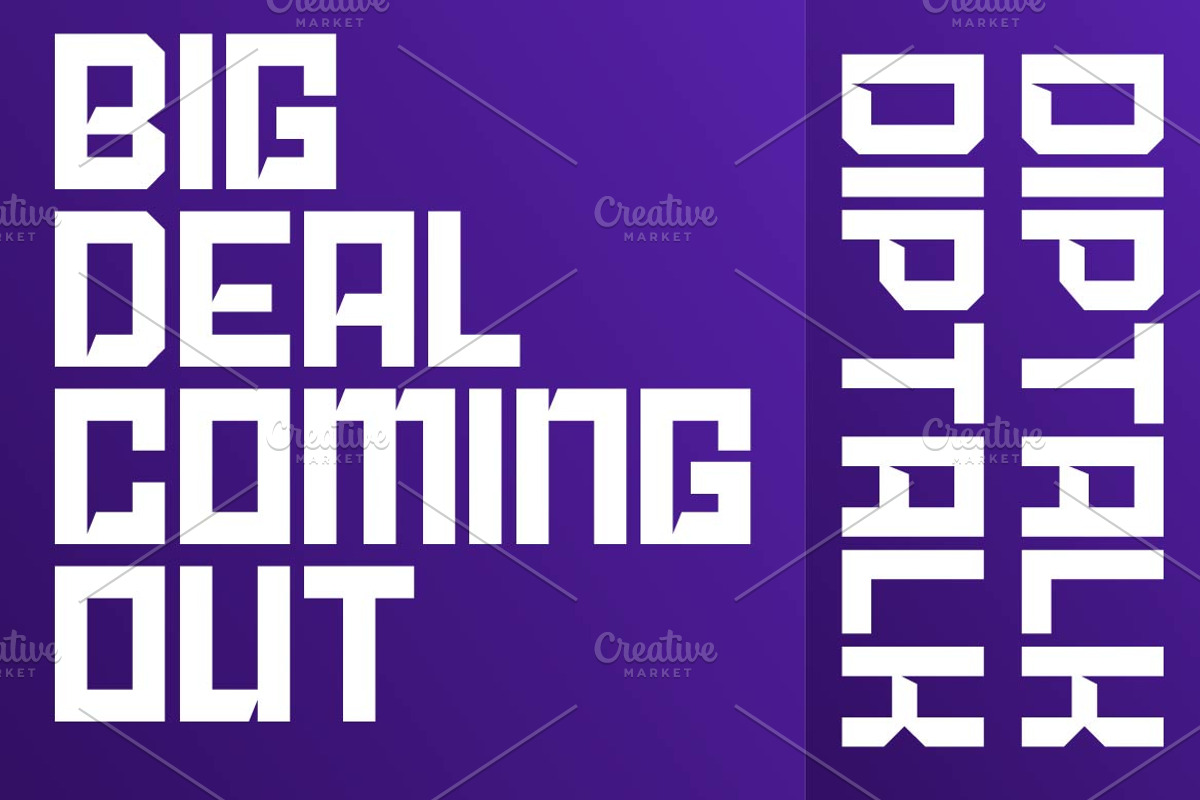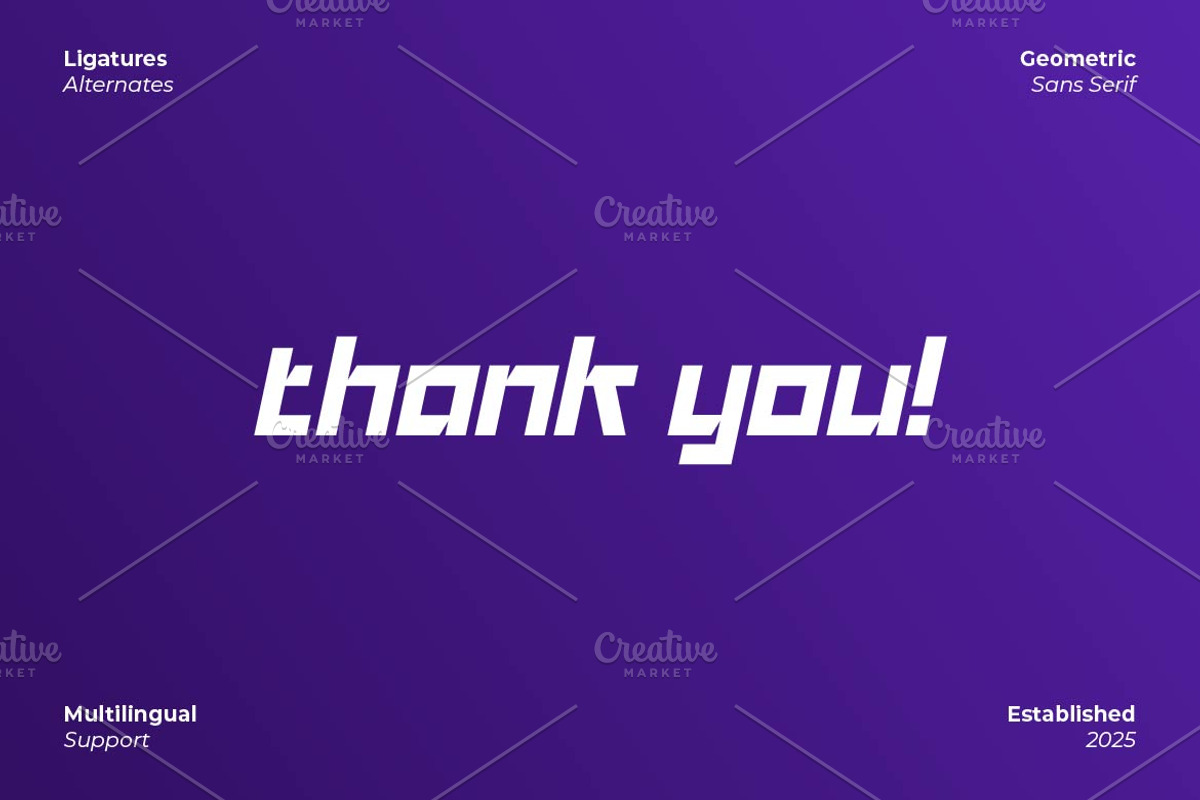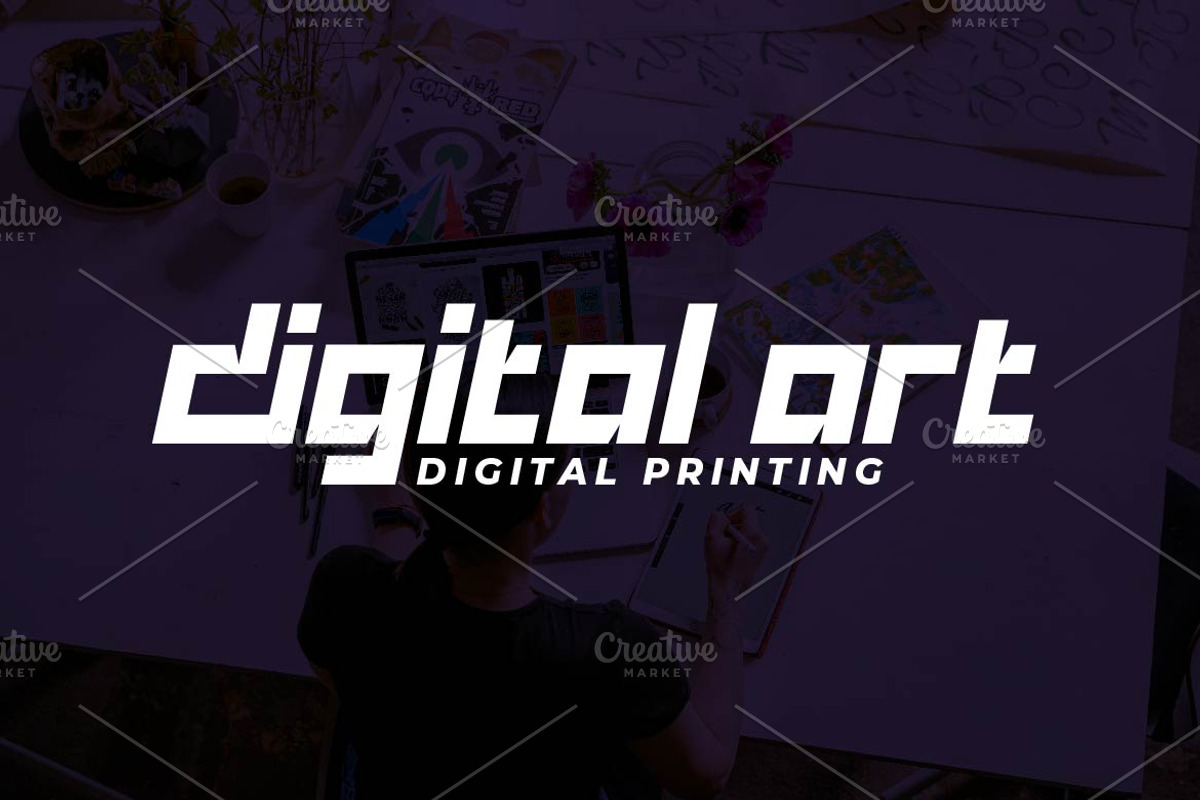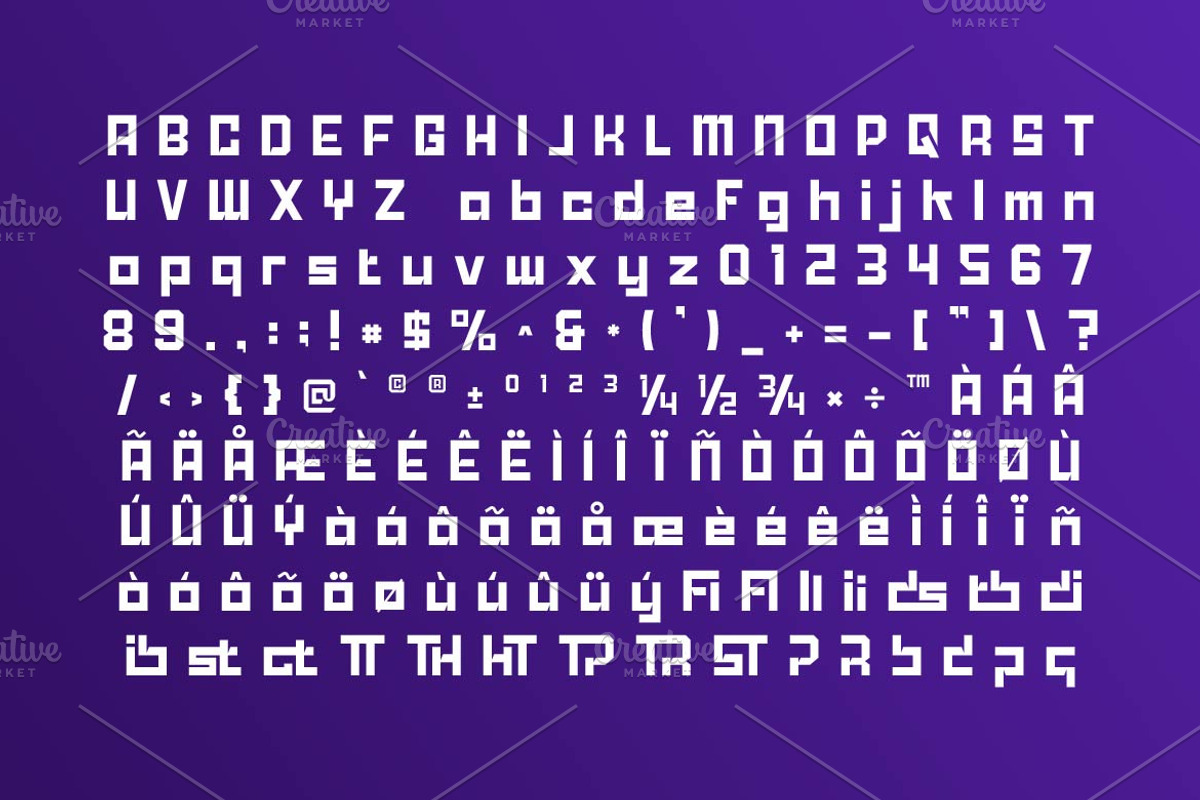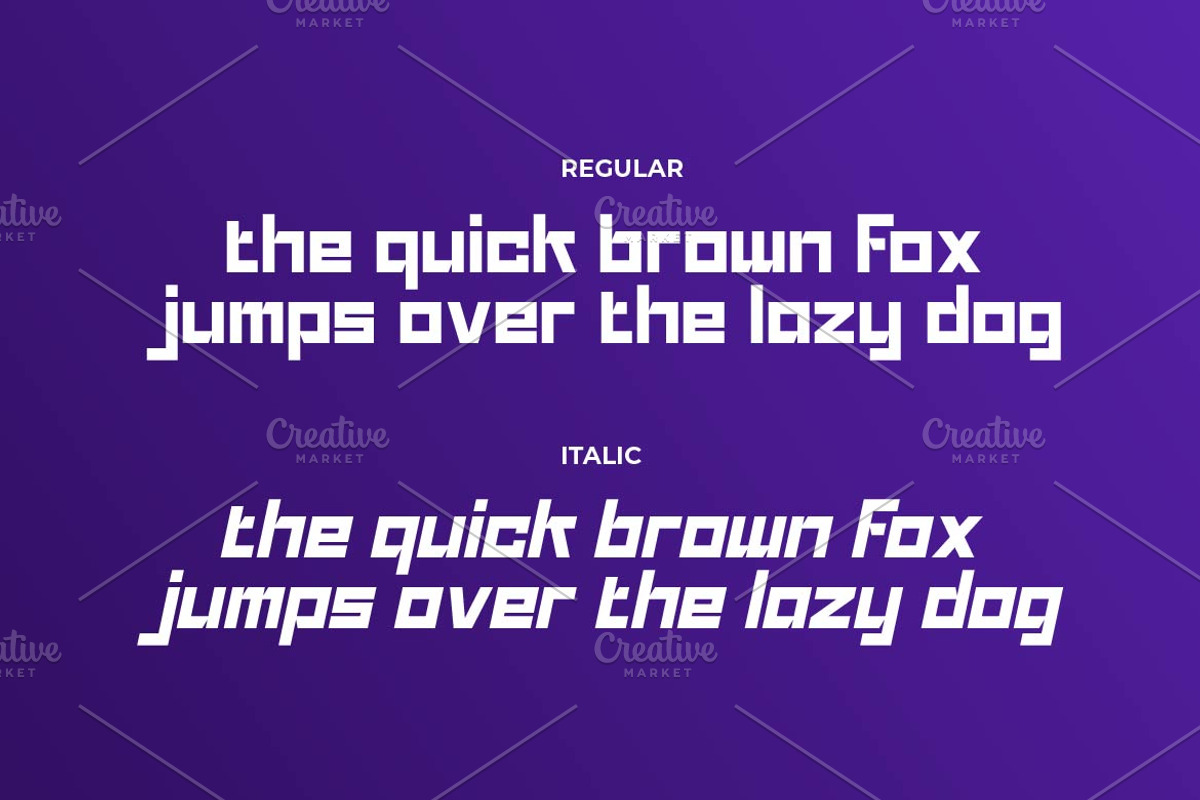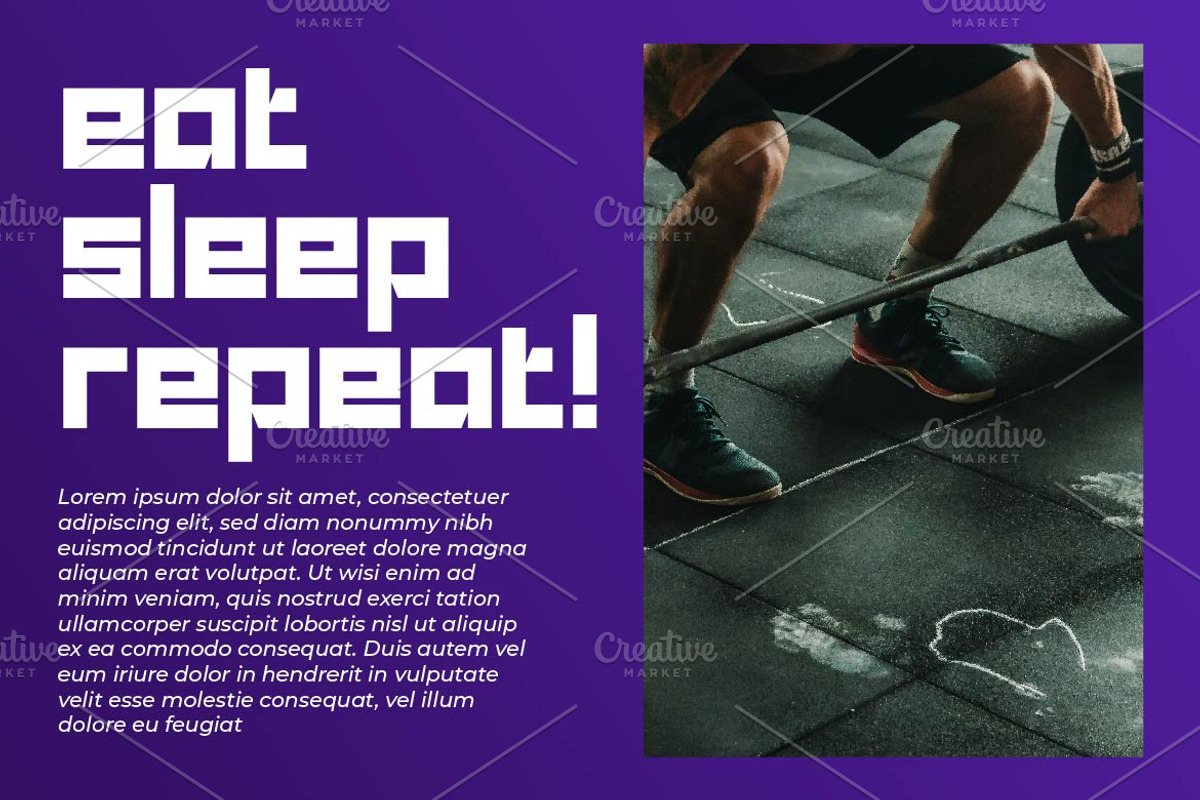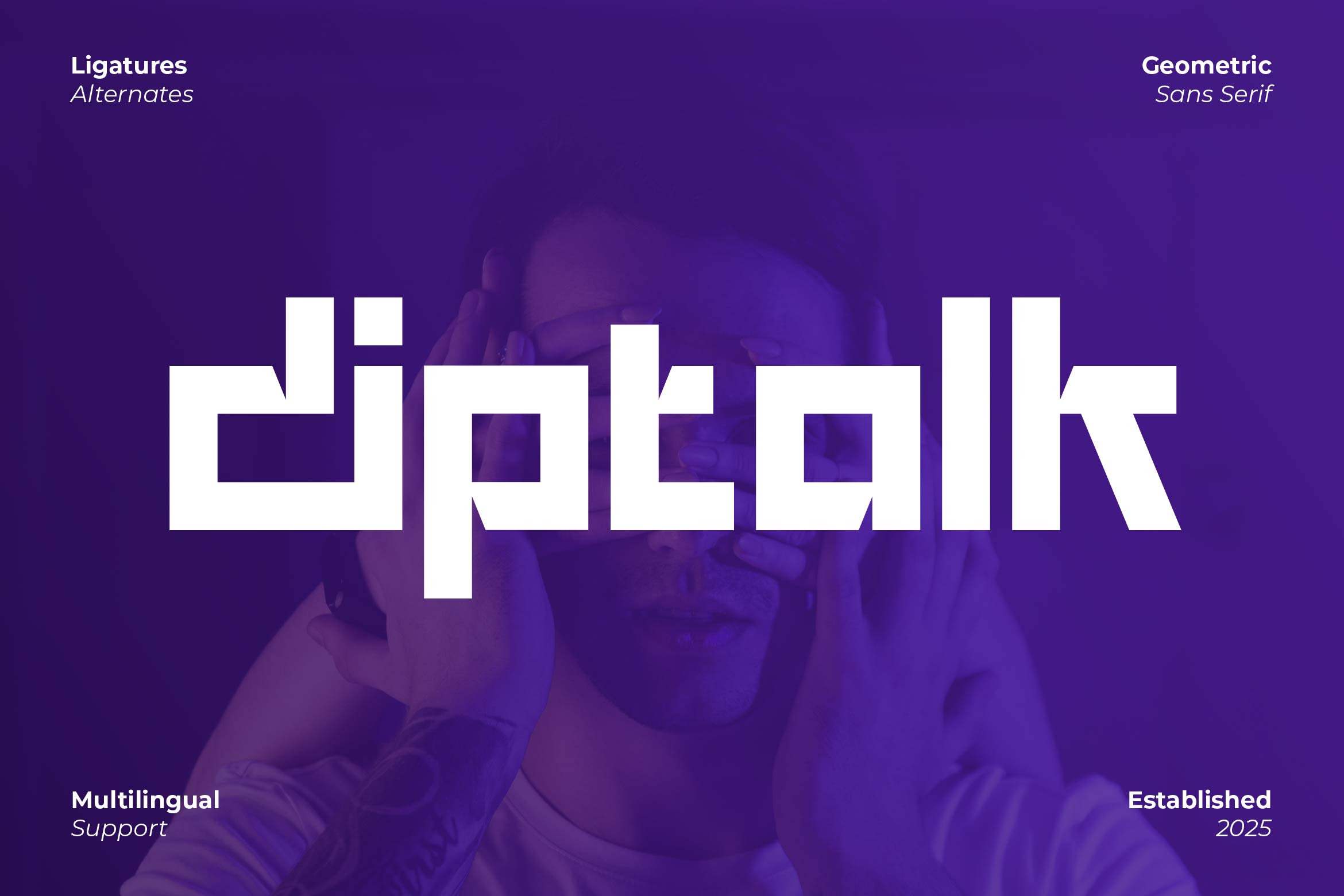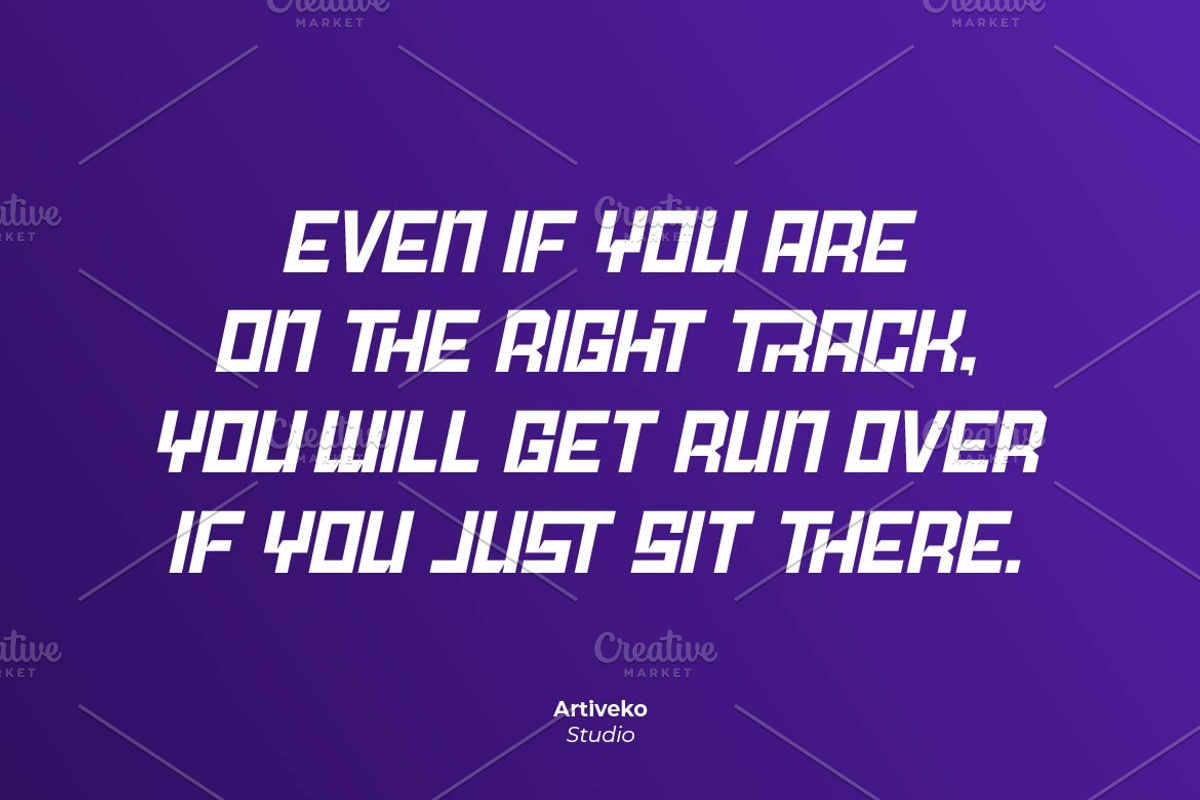
Diptalk Modern Technology Sans Font
Diptalk is a geometric sans serif font crafted with precision and modern aesthetics. Its clean lines and balanced proportions make it perfect for branding, editorial design, digital projects, and corporate identities. With multilingual support, ligatures, and alternates, Diptalk delivers a sleek, contemporary look, making it an excellent choice for projects that require clarity, minimalism, and geometric harmony.